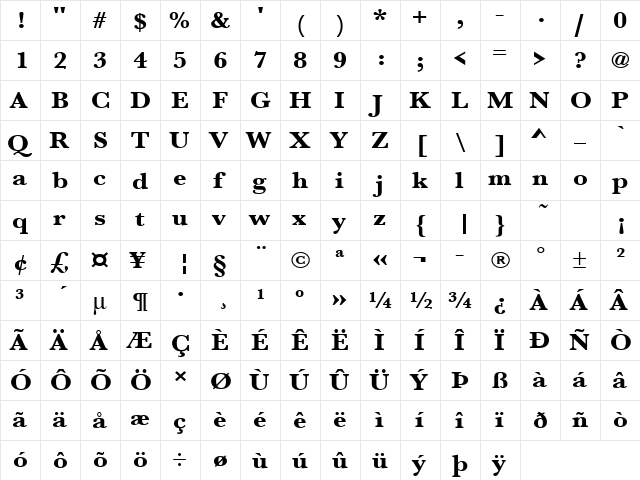
URWBaskerTExtBolExtWid Regular
Design Context for URWBaskerTExtBolExtWid Typeface
URWBaskerTExtBolExtWid is a composed and adaptable typeface that performs quietly and consistently across a wide range of design contexts.